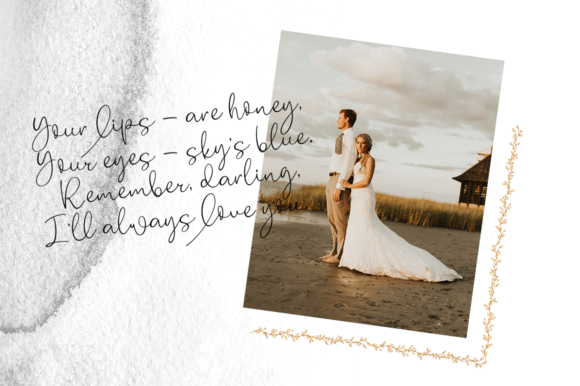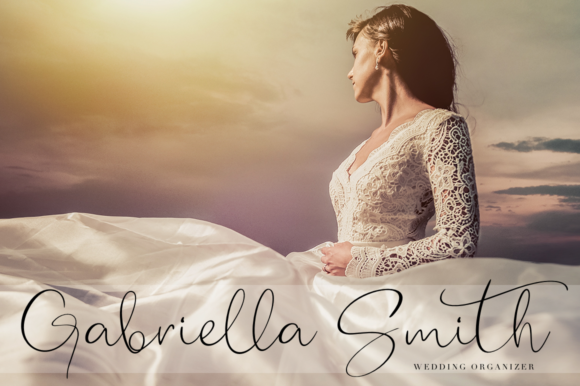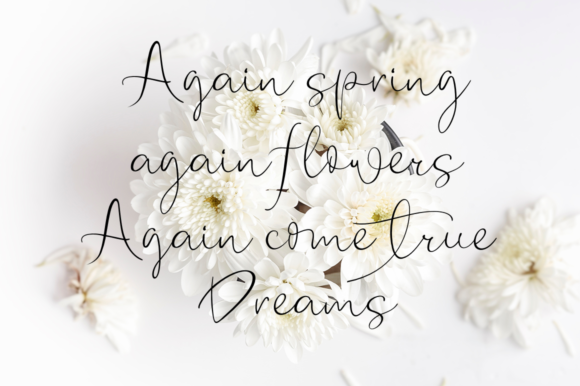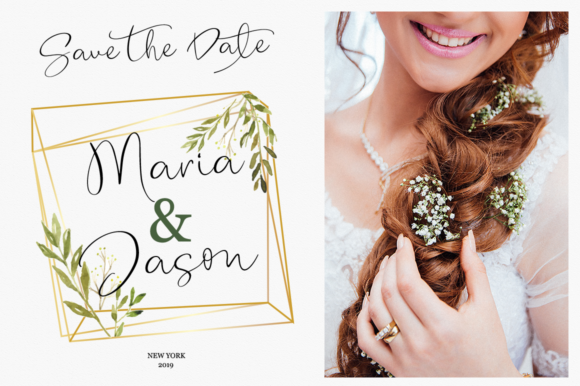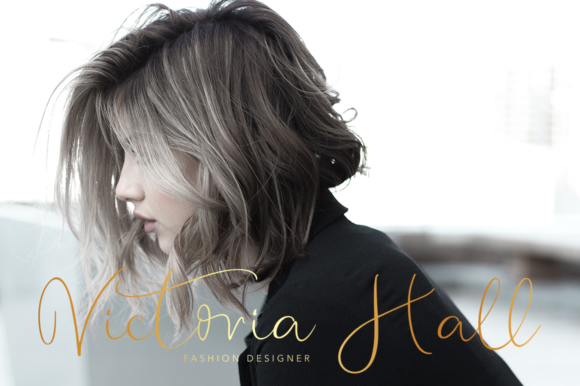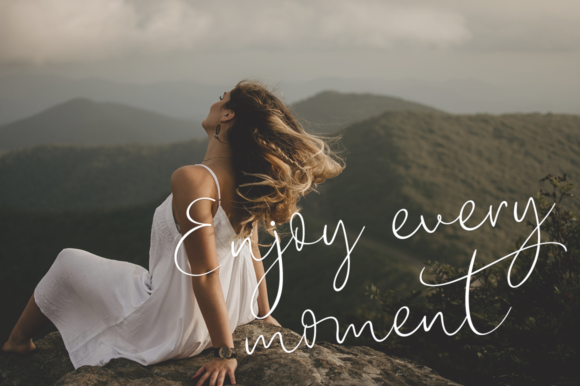
Beyond Font: Elevate Your Designs with Elegance and Whimsy
Are you on the hunt for a font that can add a touch of romance and breeziness to your design projects? Look no further than Beyond Font! This stunning handwritten font boasts an authentic, elegant twist that’s sure to capture your heart. With its light and airy feel, Beyond Font can transform even the most mundane designs into stunning works of art.
The Charm of Beyond Font
Beyond Font is a romantic and breezy handwritten font that’s perfect for designers and crafters looking to add a touch of whimsy to their work. Its elegant twist sets it apart from other fonts, making it ideal for projects that require a level of sophistication and refinement. Whether you’re working on a wedding invitation, a branding project, or a social media graphic, Beyond Font is sure to impress.
Key Features of Beyond Font
- Light and Airy Feel: Beyond Font has a light and airy feel that’s perfect for designs that require a touch of elegance and sophistication.
- Authentic and Elegant Twist: This font boasts an authentic, elegant twist that sets it apart from other handwritten fonts.
- Romantic and Breezy: Beyond Font is a romantic and breezy font that’s perfect for designs that require a touch of whimsy and charm.
- Handwritten with Love: This font is carefully crafted with love and attention to detail, making it perfect for designers and crafters who value quality and uniqueness.
How to Use Beyond Font in Your Designs
Beyond Font is a versatile font that can be used in a variety of design projects. Here are some ideas to get you started:
- Wedding Invitations: Use Beyond Font to create stunning wedding invitations that set the tone for a romantic and elegant wedding.
- Branding Projects: Add a touch of whimsy and elegance to your branding projects with Beyond Font.
- Social Media Graphics: Use Beyond Font to create eye-catching social media graphics that stand out from the crowd.
- Stationery and Paper Crafts: Beyond Font is perfect for stationery and paper crafts, such as handmade cards and journals.
Why Choose Beyond Font?
With so many fonts available, why choose Beyond Font? Here are just a few reasons why this font stands out:
- Unique and Exclusive: Beyond Font is a unique and exclusive font that’s not commonly found in font libraries.
- High-Quality Design: This font is carefully crafted with attention to detail, ensuring a high-quality design that’s perfect for professional designers and crafters.
- Easy to Read: Beyond Font is easy to read, making it perfect for designs that require a clear and legible font.
- Versatile: This font is versatile and can be used in a variety of design projects, from wedding invitations to social media graphics.
In conclusion, Beyond Font is a stunning handwritten font that’s perfect for designers and crafters looking to add a touch of romance and breeziness to their design projects. With its elegant twist and light, airy feel, this font is sure to capture your heart and elevate your designs to the next level. So why wait? Fall in love with Beyond Font and turn your design projects into stunning works of art!